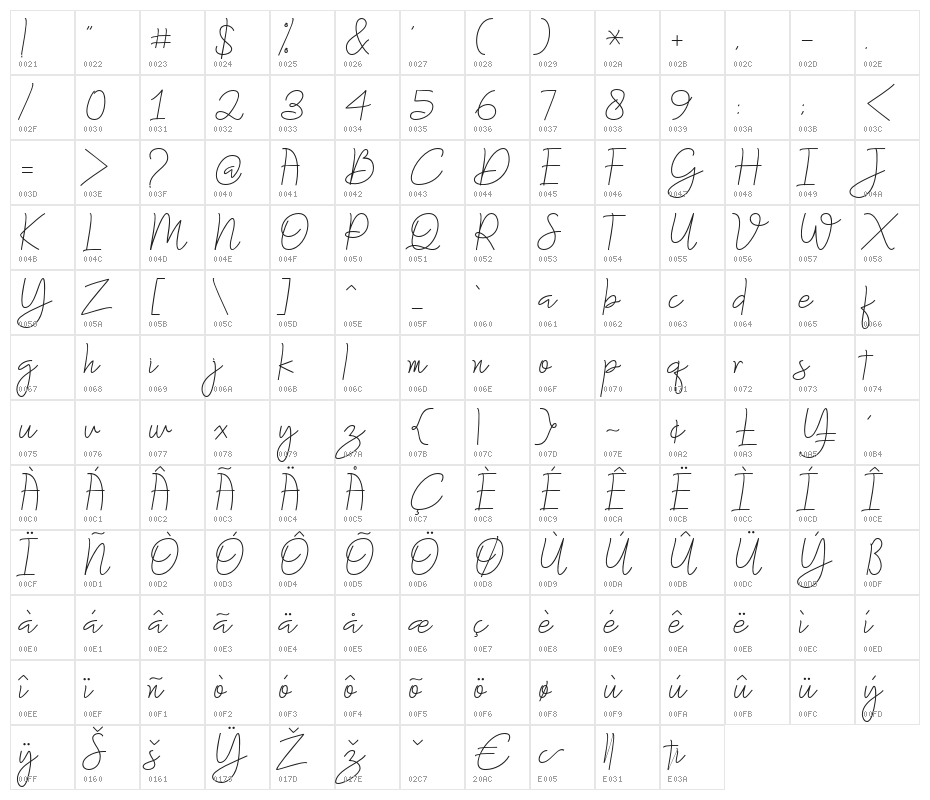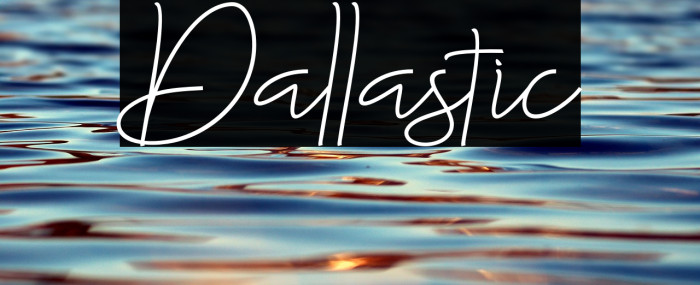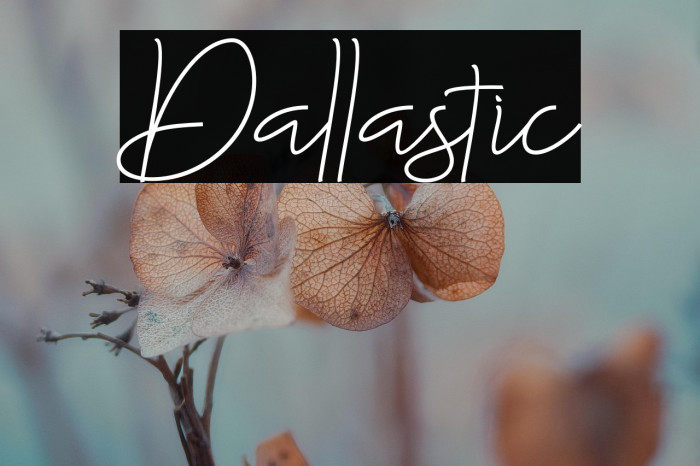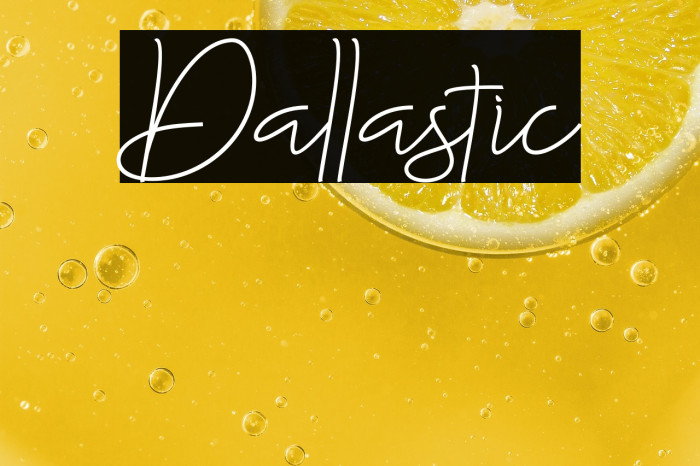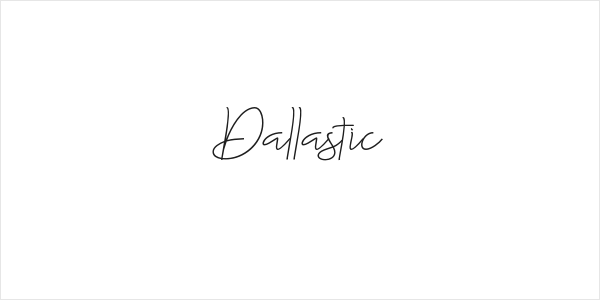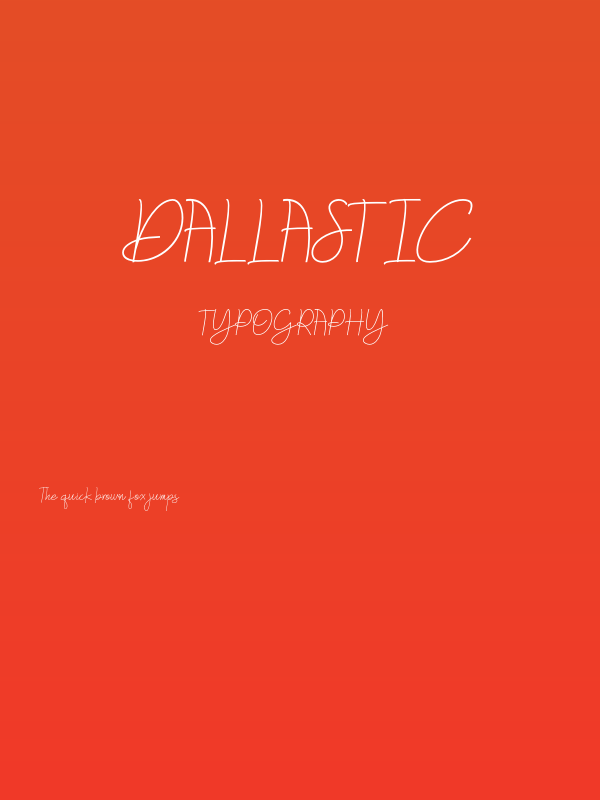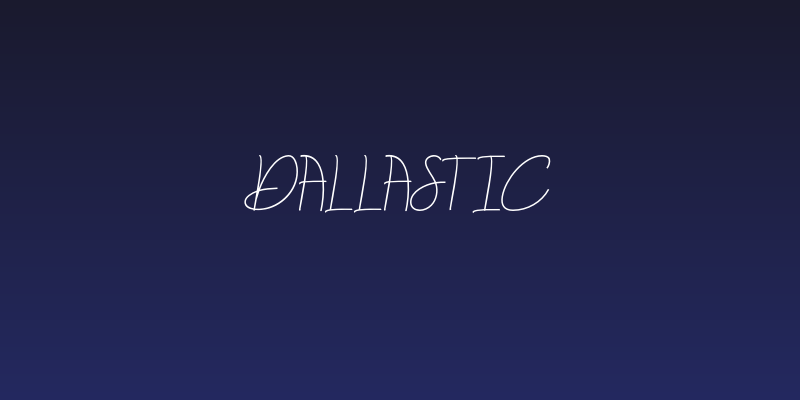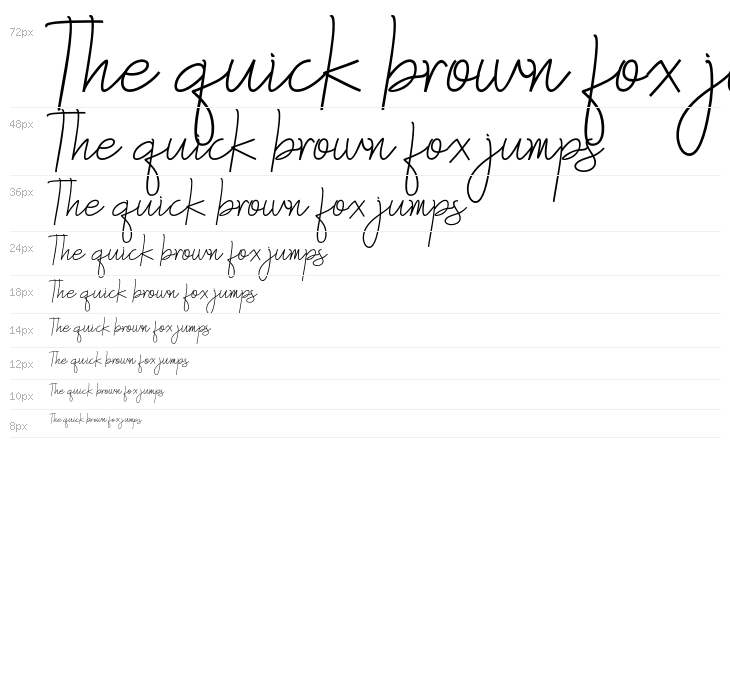
Dallastic Font
Dallastic Description
This font features a fluid, cursive style that exudes elegance and sophistication. The characters are connected with smooth, flowing lines, giving it a handwritten appearance. The uppercase letters are tall and slightly slanted, while the lowercase letters maintain a consistent flow with gentle curves. The numerals are distinct, maintaining the same cursive style, which adds a unique touch to the overall design. Special characters are seamlessly integrated, enhancing the font's versatility. This font is ideal for projects that require a personal, artistic touch, such as invitations, greeting cards, or branding materials.
| Overall Style | Elegant, Artistic |
| Use Case | Headlines, Logos, Invitations |
| Proposed Projects | Ideal for invitations, greeting cards, branding, and artistic projects. |